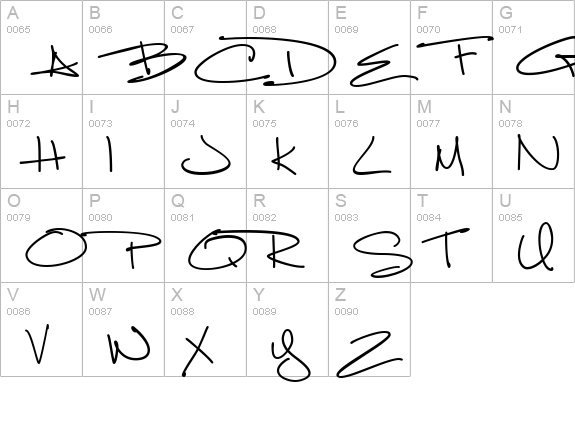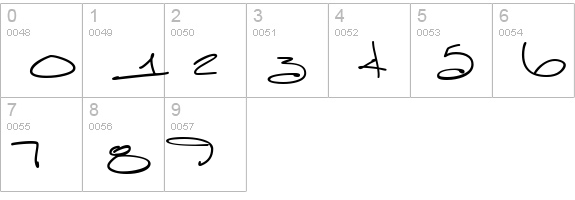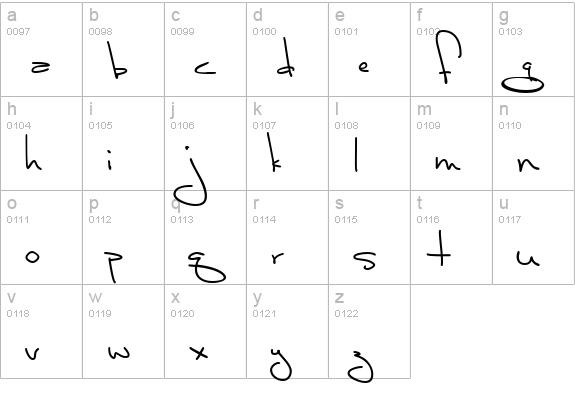
Luna Bar Font Details
Luna Bar font is a stylish and elegant typeface that exudes sophistication and modernity. Its sleek and smooth curves make it perfect for a wide range of design projects, from branding to editorial layouts. The tall, slender letters of Luna Bar add a touch of elegance and refinement to any design. What sets Luna Bar font apart is that it is not only visually striking but also free to download. Yes, you read that right - Luna Bar font is freely available to download at FontsMarket.com. This means that you can elevate your designs with this exquisite font without having to worry about any cost. So why wait? Download Luna Bar font today and let your creativity shine with this beautiful and versatile typeface.